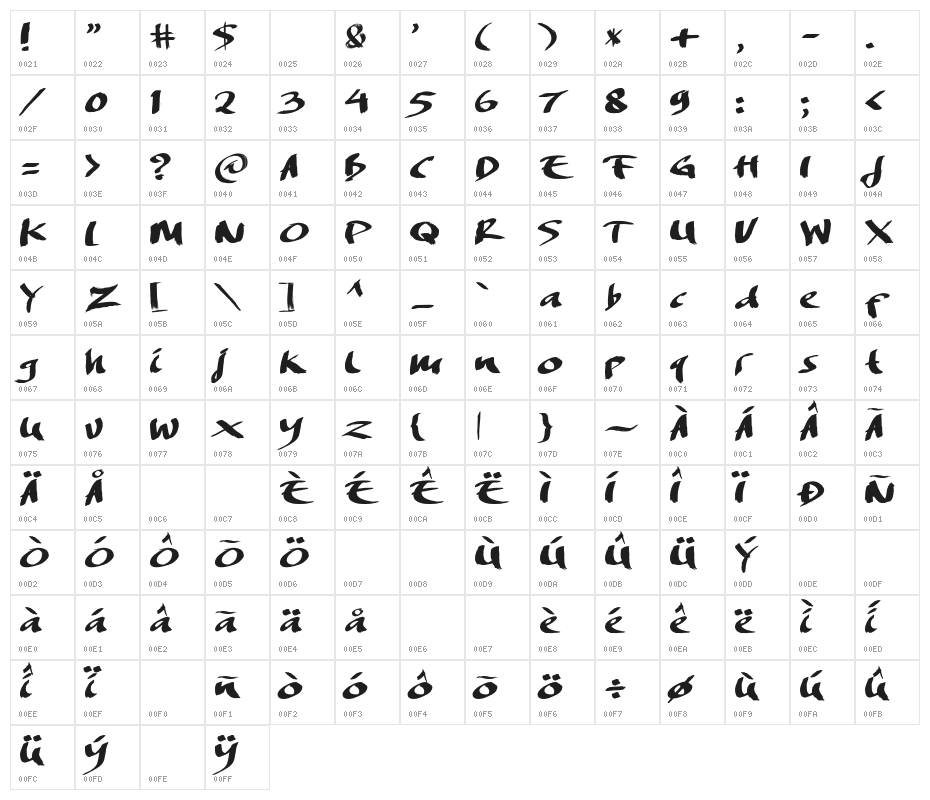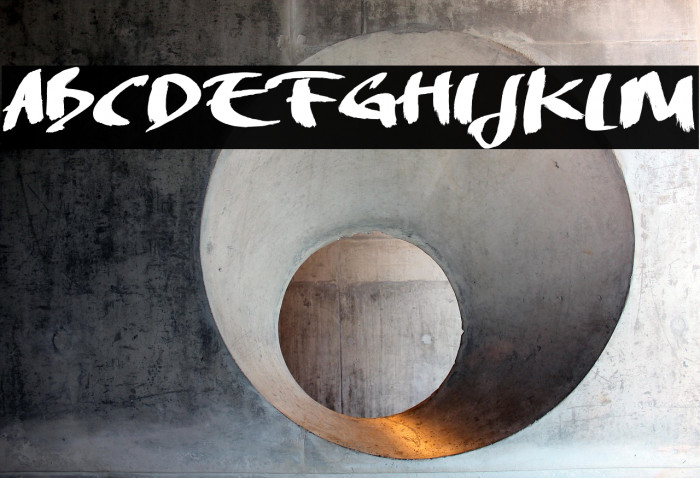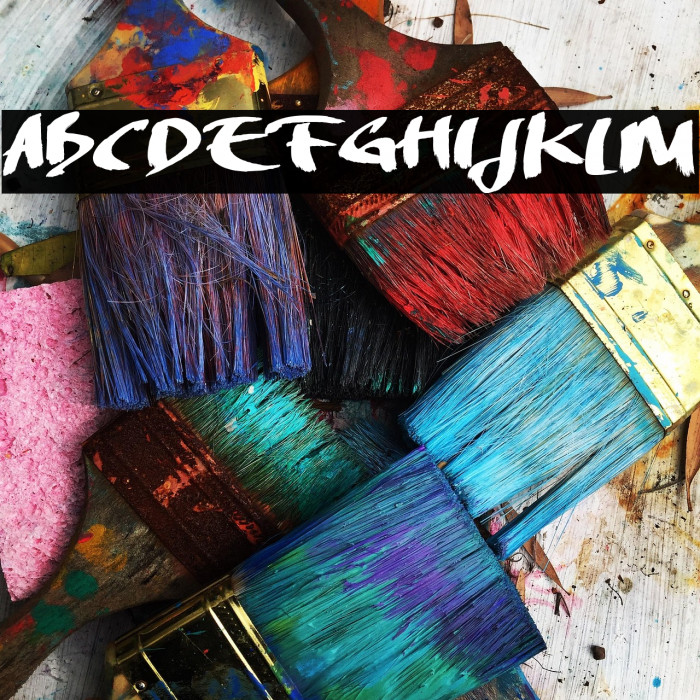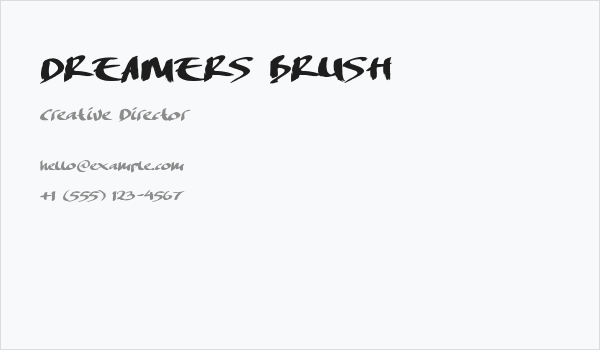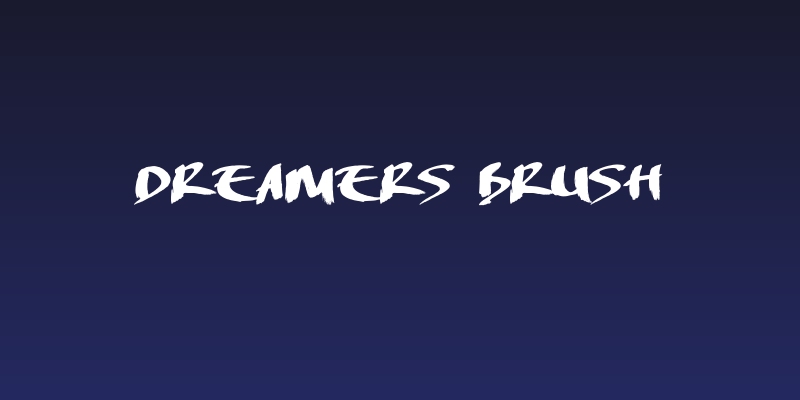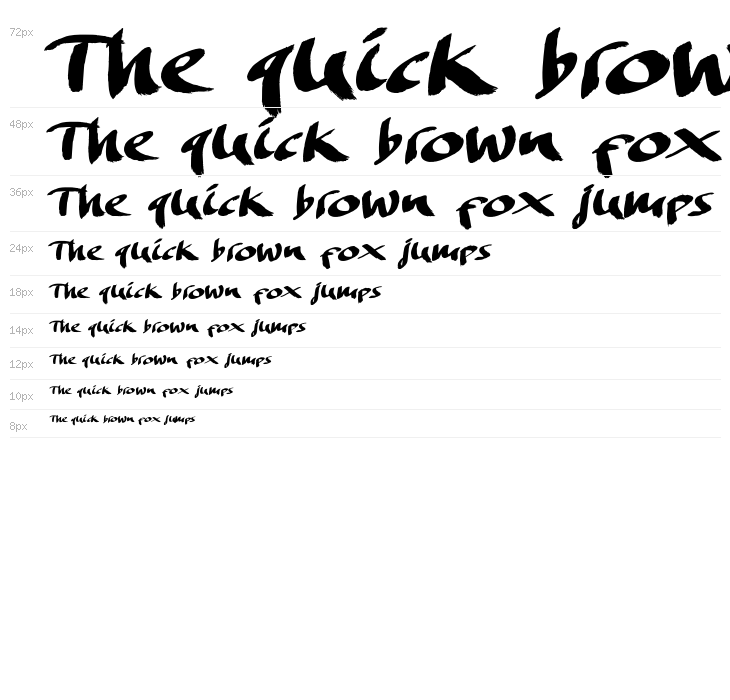
DREAMERS BRUSH Font
DREAMERS BRUSH Description
This font exudes a dynamic and energetic style, characterized by its bold, brush-like strokes that convey a sense of movement and creativity. The letters are crafted with varying thicknesses, giving them a hand-painted appearance that is both artistic and expressive. The uppercase and lowercase letters maintain a consistent flow, while the numerals and special characters complement the overall aesthetic. This font is ideal for projects that require a personal touch or a bold statement, such as branding, posters, or artistic designs.
| Overall Style | Artistic, Expressive |
| Proposed Projects | Ideal for branding, posters, artistic designs, and any project requiring a bold, creative touch. |